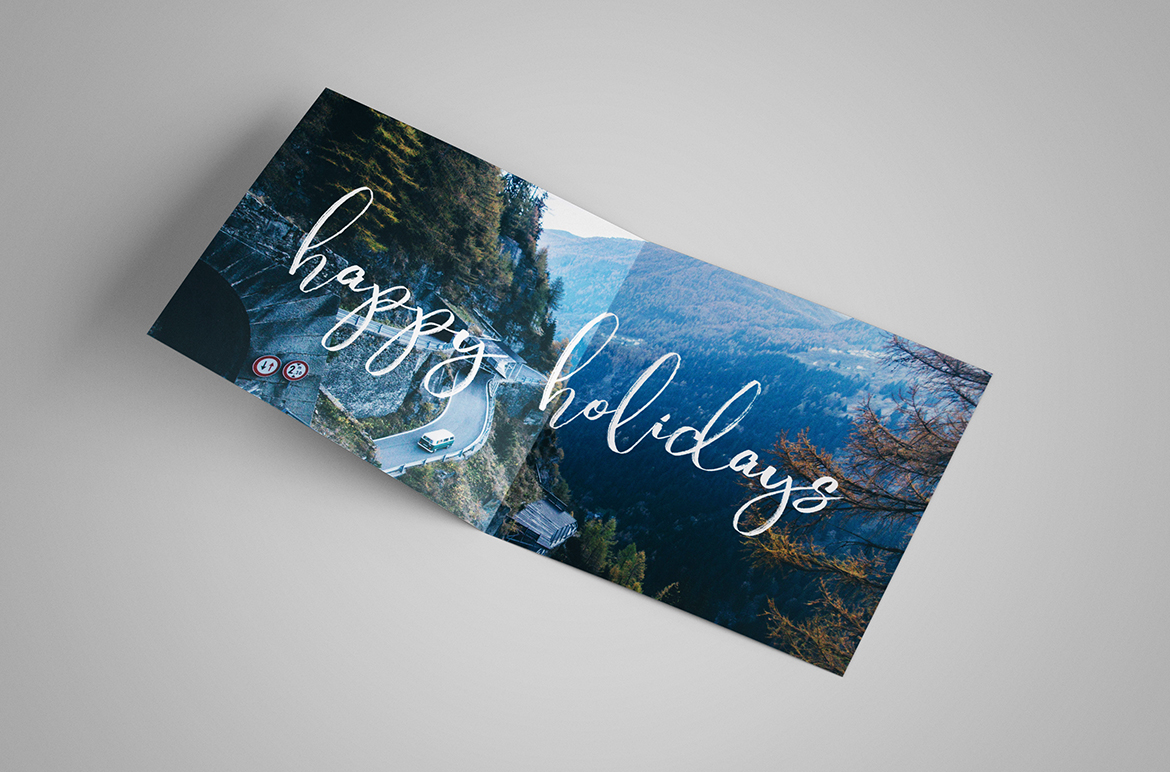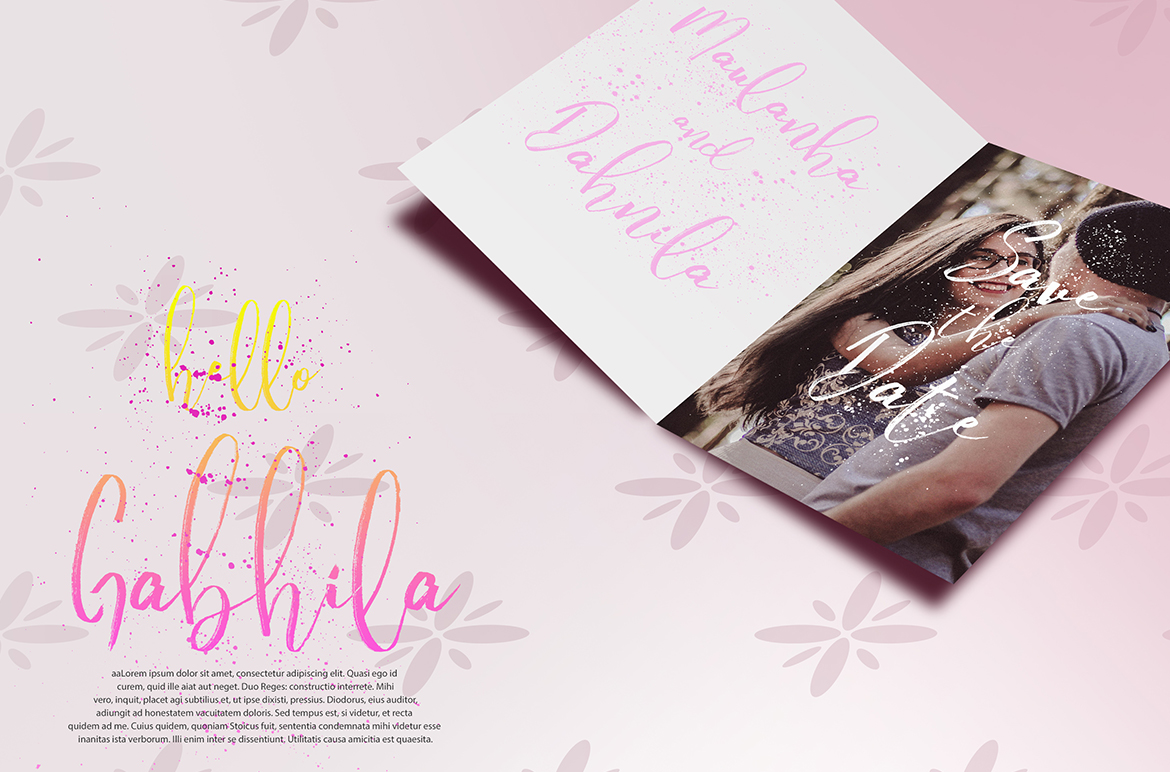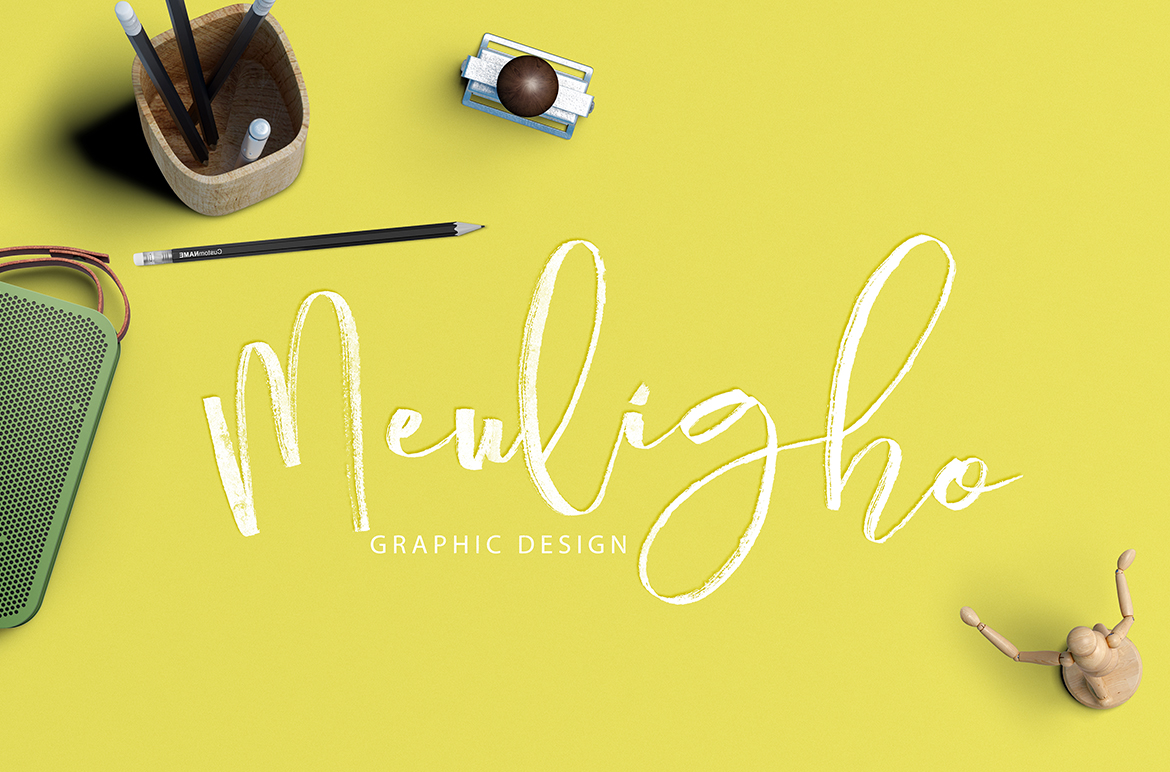
Introduction to Hello Gabhila Font
Hello Gabhila is a brush script font that comes with bonus swashes & splatters.
Key Features of Hello Gabhila Font